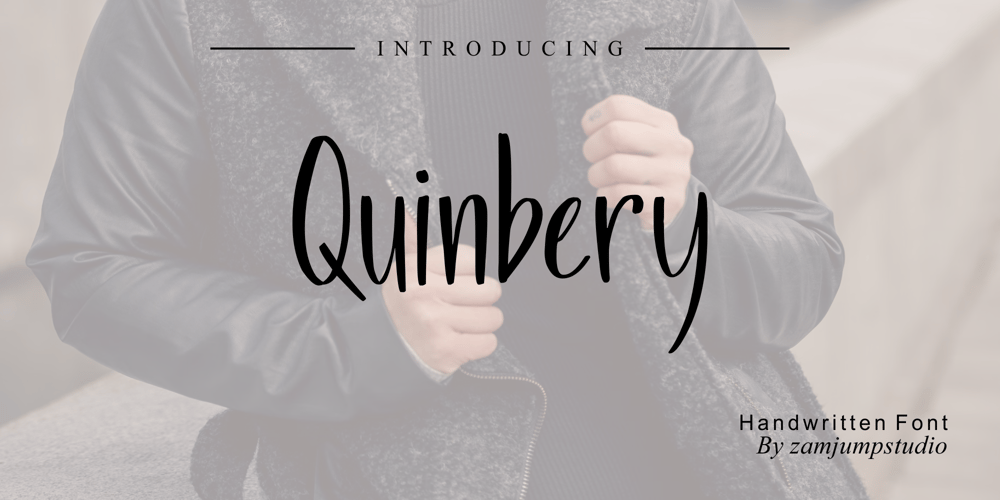
Quinbery
Quinbery font
Quinbery Font Family was designed by Zamjump and published by Zamjump. Quinbery contains 1 styles and family package options. Quinbery is casual handwriting. It comes with the perfect stylish & modern touch to make any design stand out! This font type is made perfectly for applying headlines, invitations, greeting cards, book covers, fashion, hand tags and product labels.